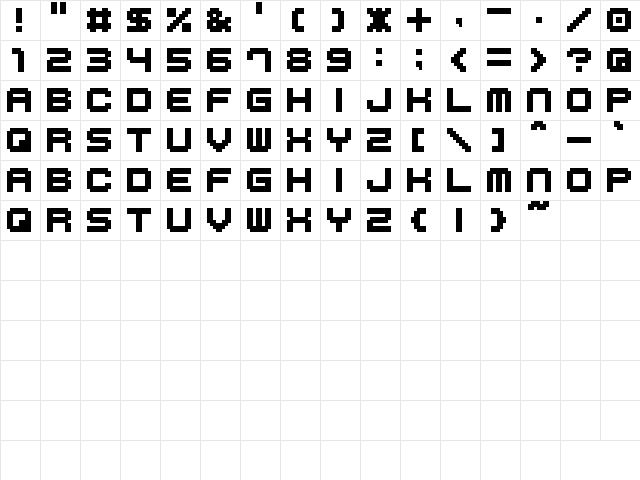
M41_LOVEBIT Regular Free Font
M41_LOVEBIT Regular
Design Context for M41_LOVEBIT
M41_LOVEBIT is a composed and adaptable typeface that performs quietly and consistently across a wide range of design contexts.
Pro Tip: Use M41_LOVEBIT in both headline and body roles to test its range before committing to a single application.